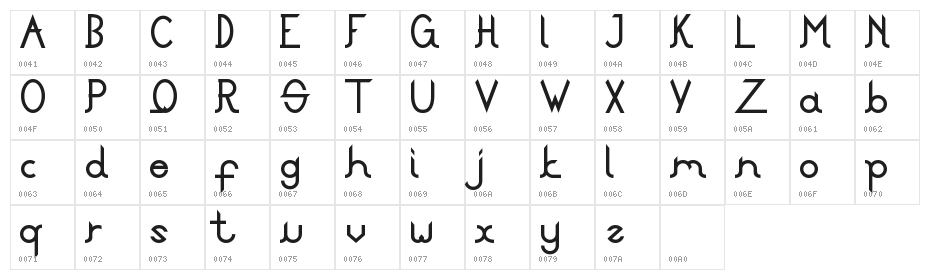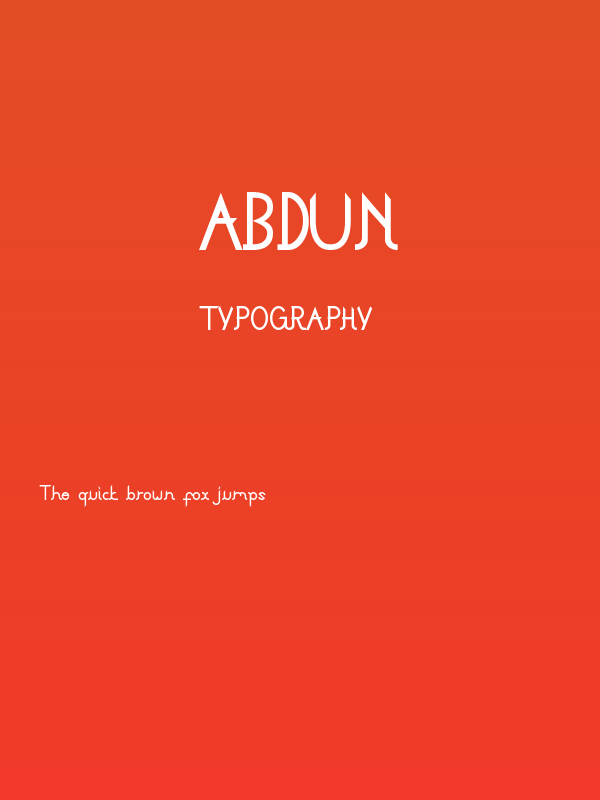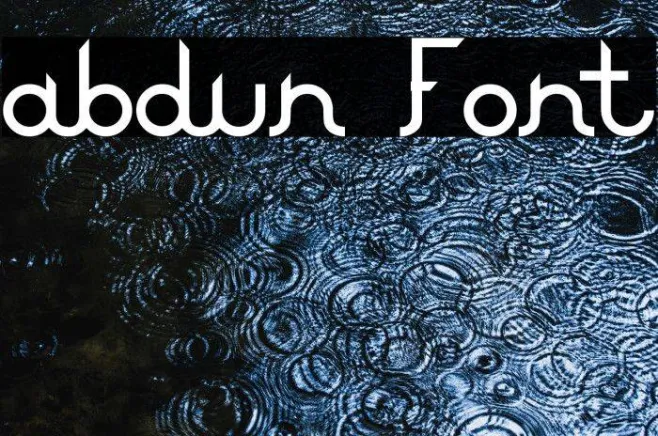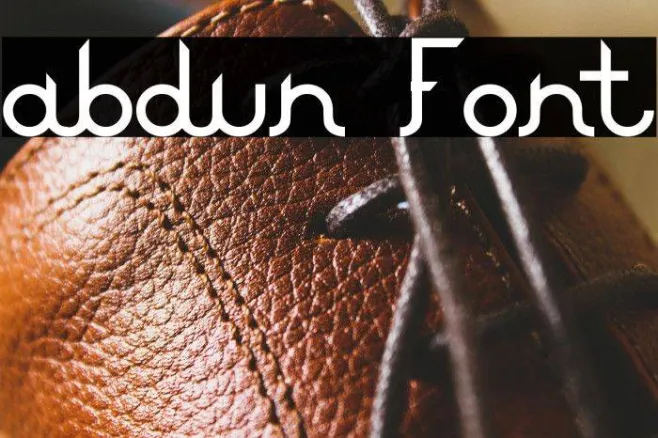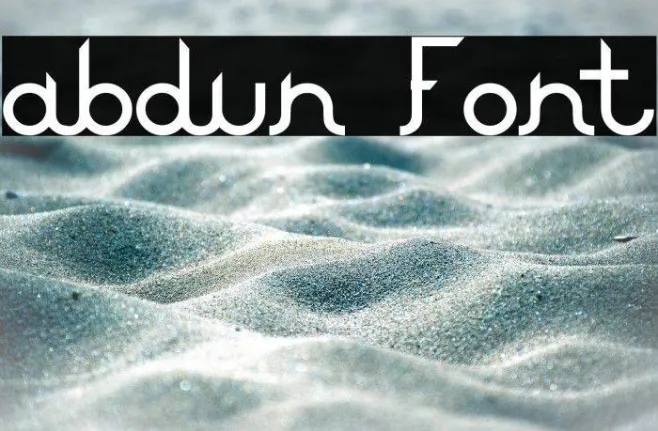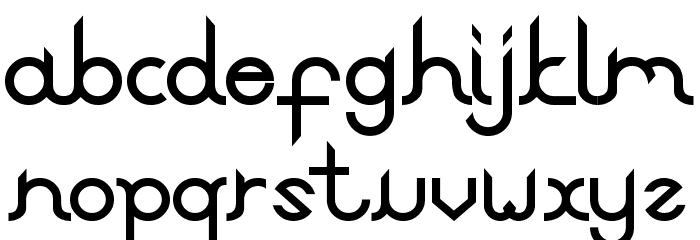
abdun Font
abdun Description
This font features a unique and artistic design with a modern twist. The uppercase letters are characterized by sharp angles and geometric shapes, giving them a futuristic feel. The lowercase letters maintain a consistent style, with smooth curves and a slightly playful appearance. The font includes a set of special characters, each enclosed in a rectangular frame, adding to its decorative nature. The overall design is bold and eye-catching, making it suitable for creative projects that require a distinctive and modern look.
| Proposed Projects | Ideal for branding, posters, and creative design projects that require a modern and artistic touch. |